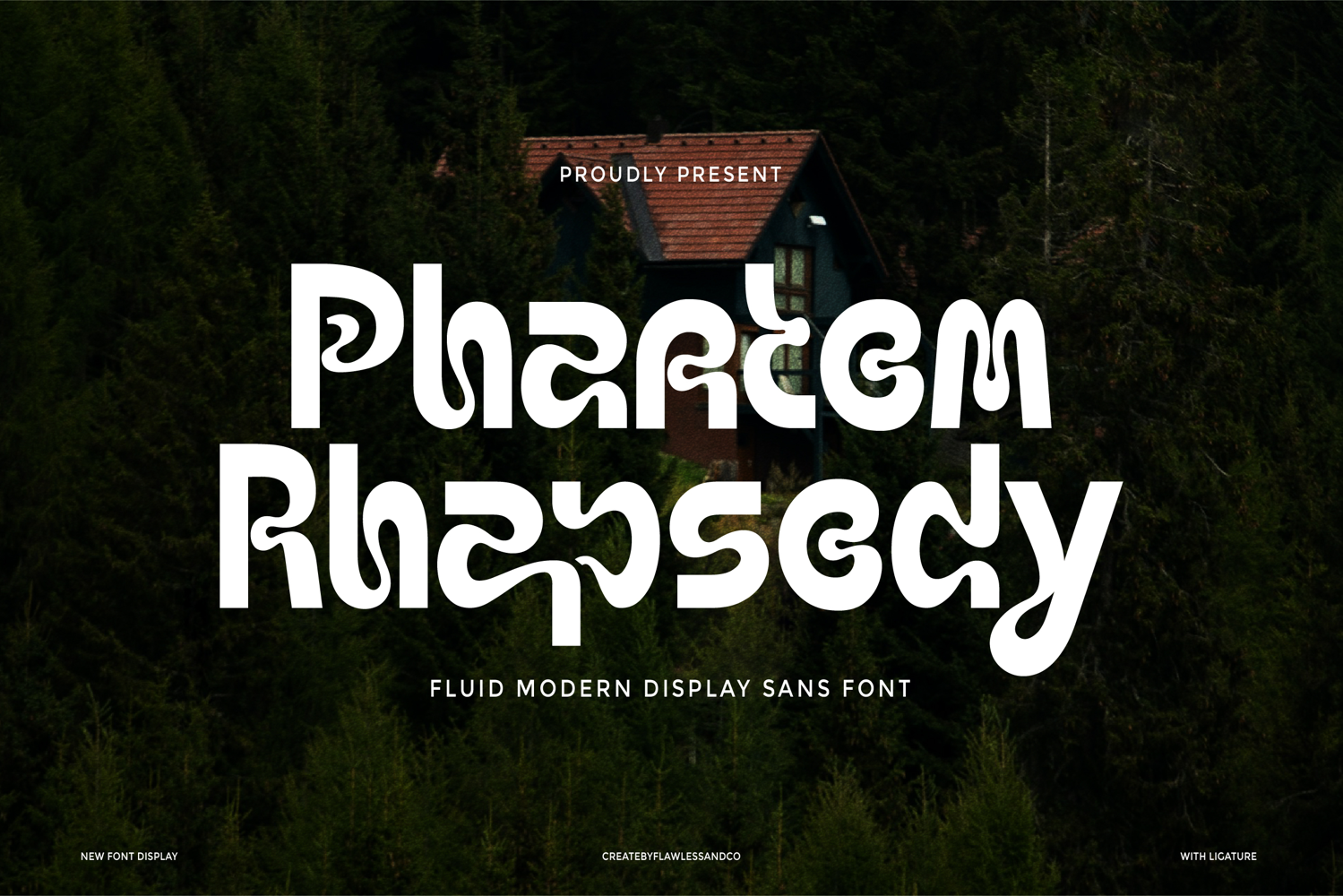
Phantom Rhapsody
PHANTOM RHAPSODY - Display Sans Serif Font
PHANTOM RHAPSODY is a classic horror-style display serif font, filled with eerie character and dramatic flair. Designed with sharp details and bold strokes, it brings a gothic atmosphere that’s both haunting and elegant. Whether you're crafting a spine-chilling movie title, a mysterious book cover, or branding with a dark and powerful identity, PHANTOM RHAPSODY delivers high impact. Its unique letterforms offer both readability and strong visual presence, making it a versatile tool for designers who want to evoke mystery, suspense, and timeless storytelling.
• Alternates & Ligatures
Who Should Use PHANTOM RHAPSODY?
PHANTOM RHAPSODY is perfect for designers, creatives, and storytellers who want to bring a sense of mystery, gothic elegance, or vintage horror to their projects. Whether you're working on dark-themed branding, classic horror posters, or atmospheric book covers, this font is made for those who dare to design with drama and bold character.
A Must-Have Font for Brand and Logo Creators and Designers
PHANTOM RHAPSODY is a must-have for anyone looking to craft unforgettable brand visuals, hauntingly bold logos, or editorial designs that stand out with a mysterious and artistic edge. Its unique style blends modern display clarity with a touch of gothic allure—perfect for making a strong impression in branding, merchandise, and creative media.
Why Choose PHANTOM RHAPSODY for Brand and Logo Projects?
Phantom Rhapsody brings a bold and contemporary energy to every design it touches. Its clean yet powerful sans serif style is perfect for making impactful visual statements, offering versatility for logos, branding, and modern editorial layouts. Whether you're crafting a high-end brand or building a striking digital presence, Phantom Rhapsody ensures your typography stands out with clarity, confidence, and style.
Suitable For:
• Brand identities and logo design
• Sports and active lifestyle branding
• Modern product packaging
• Editorial layouts and magazine headers
• Social media graphics and digital ads
• Website hero typography and banners
• Creative poster and merchandise designs